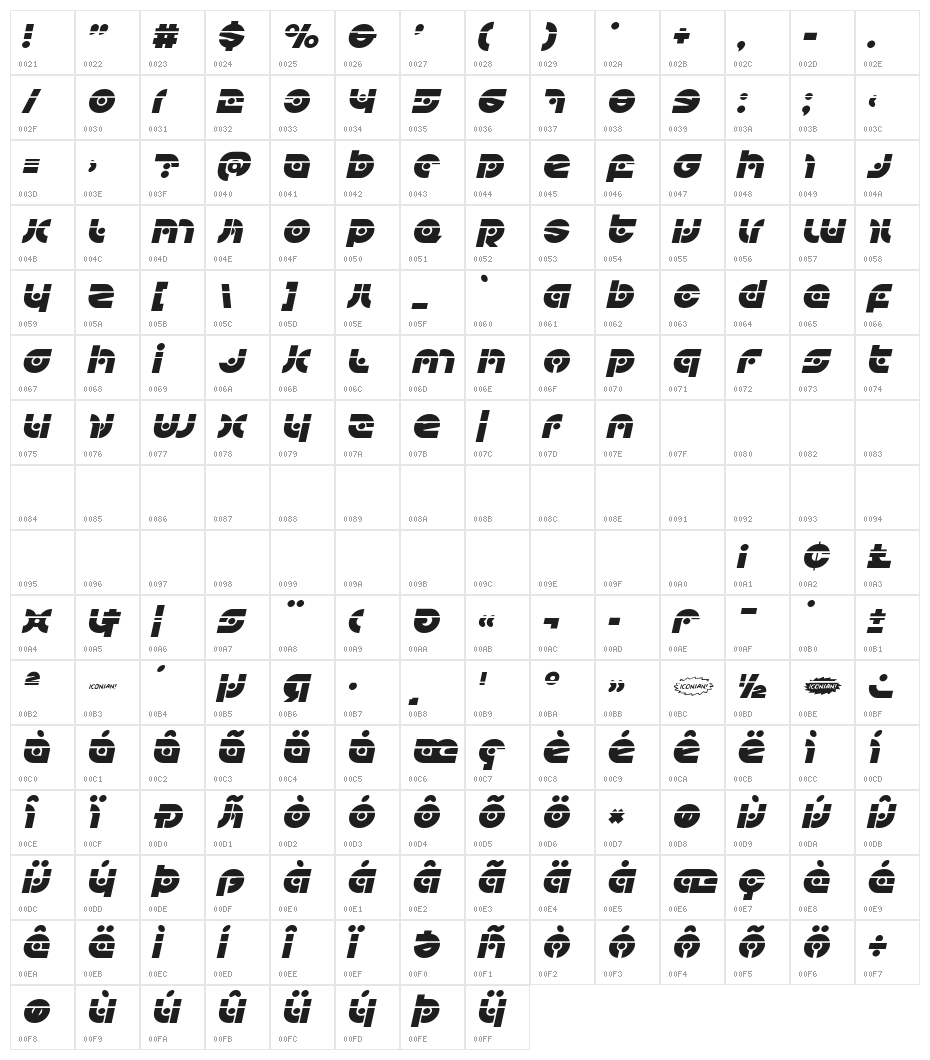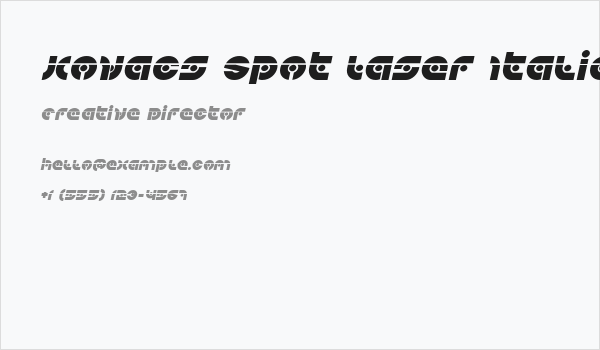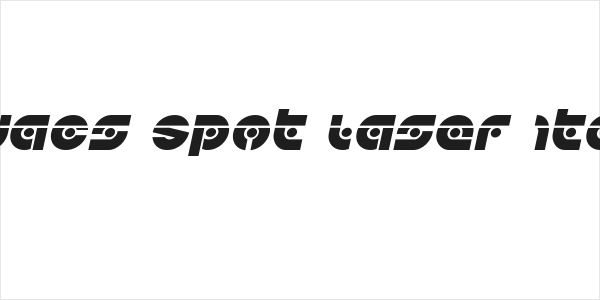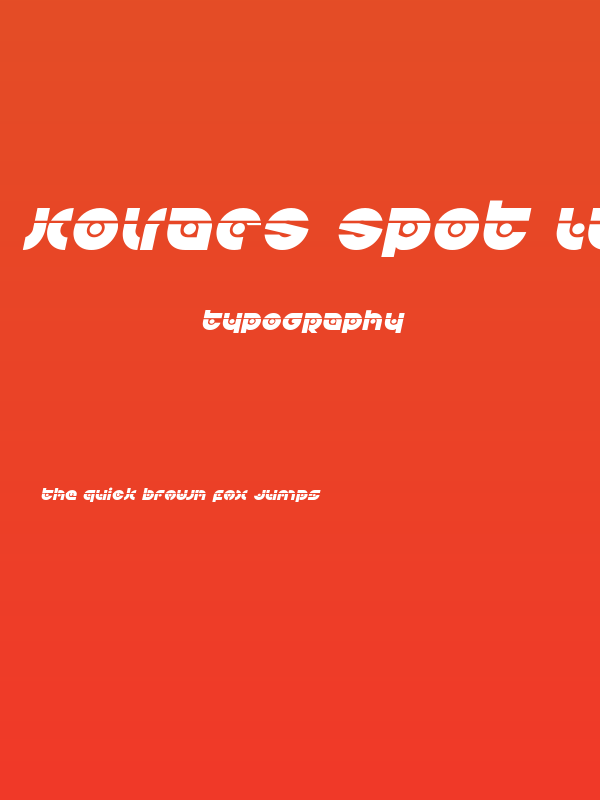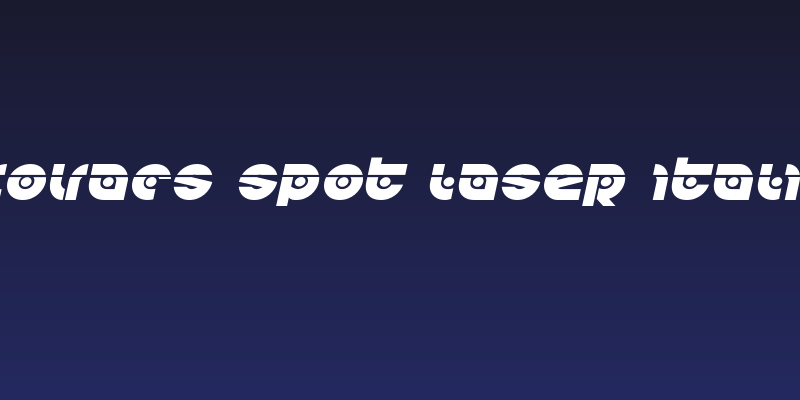
Kovacs Spot Laser Italic Font
Kovacs Spot Laser Italic Description
This font features a futuristic and geometric design with a distinct italic slant, creating a sense of motion and modernity. The characters are composed of bold, solid shapes with sharp angles and curves, giving them a unique, cutting-edge appearance. The use of negative space within the letters adds an intriguing visual element, enhancing its dynamic style. The font's boldness and angularity make it highly suitable for attention-grabbing headlines and display purposes. Its modern aesthetic is complemented by a consistent stroke width, ensuring readability while maintaining its distinctive look.
| Proposed Projects | Ideal for sci-fi themed designs, technology branding, video game titles, and modern advertising campaigns. |